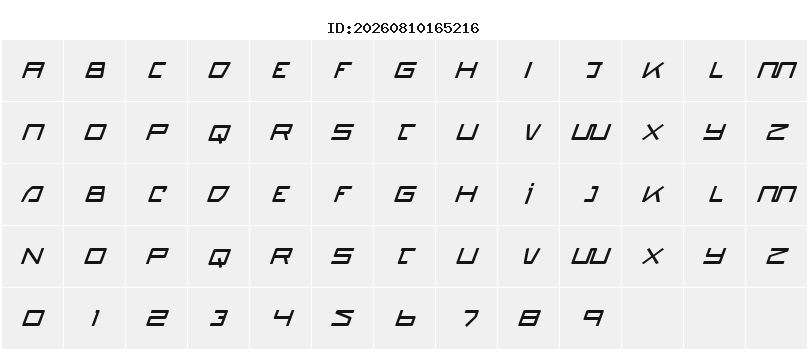
Quasitron Bold Italic Preview
• Font Name: Quasitron Bold Italic
• Full Font Name: Quasitron Bold Italic
About Quasitron Bold Italic.ttf
Quasitron Bold Italic.ttf is a modern, elegant sans-serif font designed for ultimate readability and visual harmony. Perfect for branding, headlines, web design, and print materials.